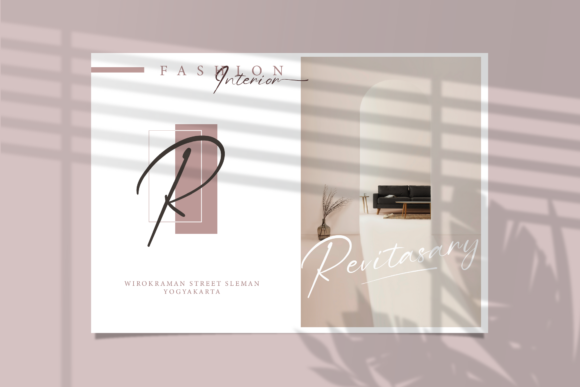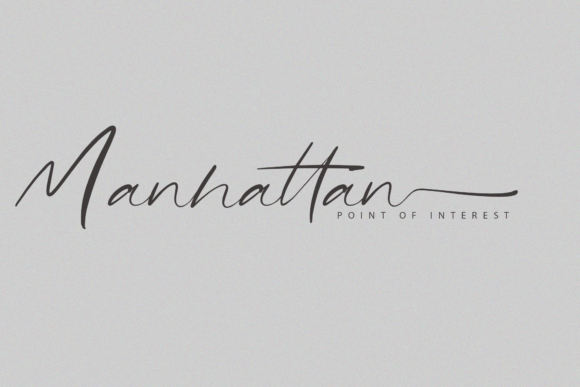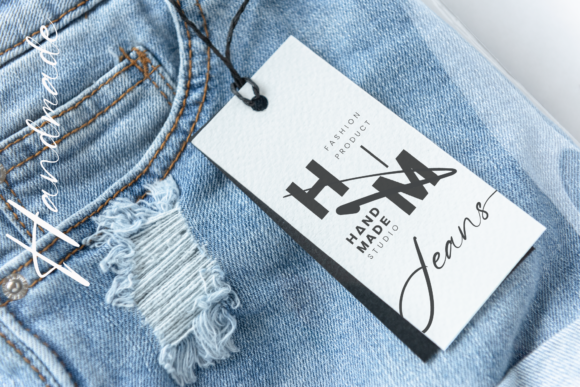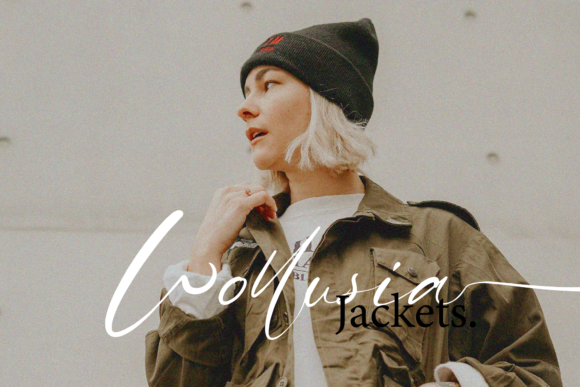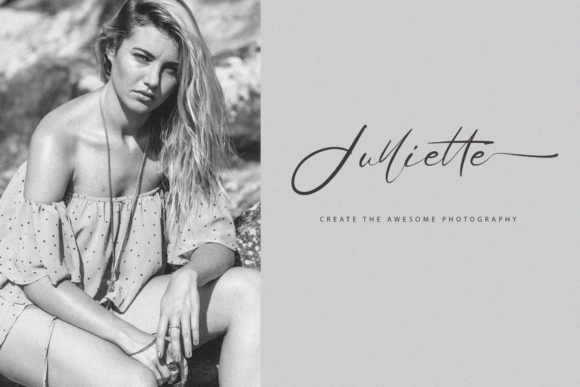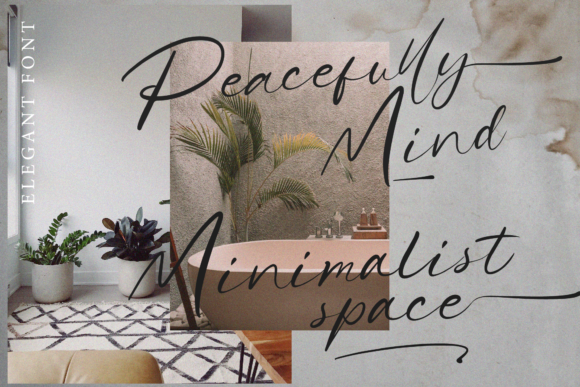
Introduction to Pretty Rosse Font
Pretty Rosse is a cute and casual handwritten font with an incredibly friendly feel.
Whether youโre looking for fonts for Instagram or calligraphy scripts for DIY projects, Pretty Rosse will turn any creative idea into a true piece of art .